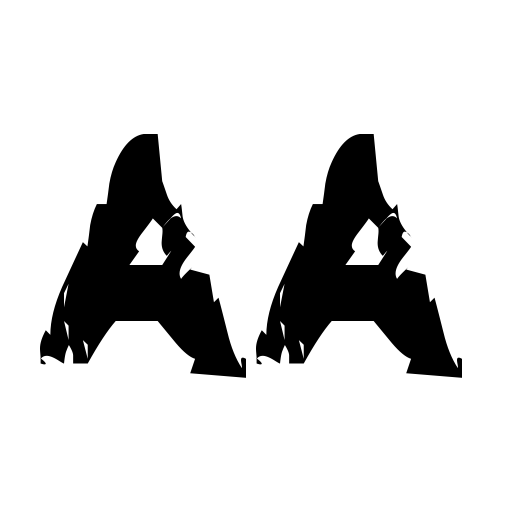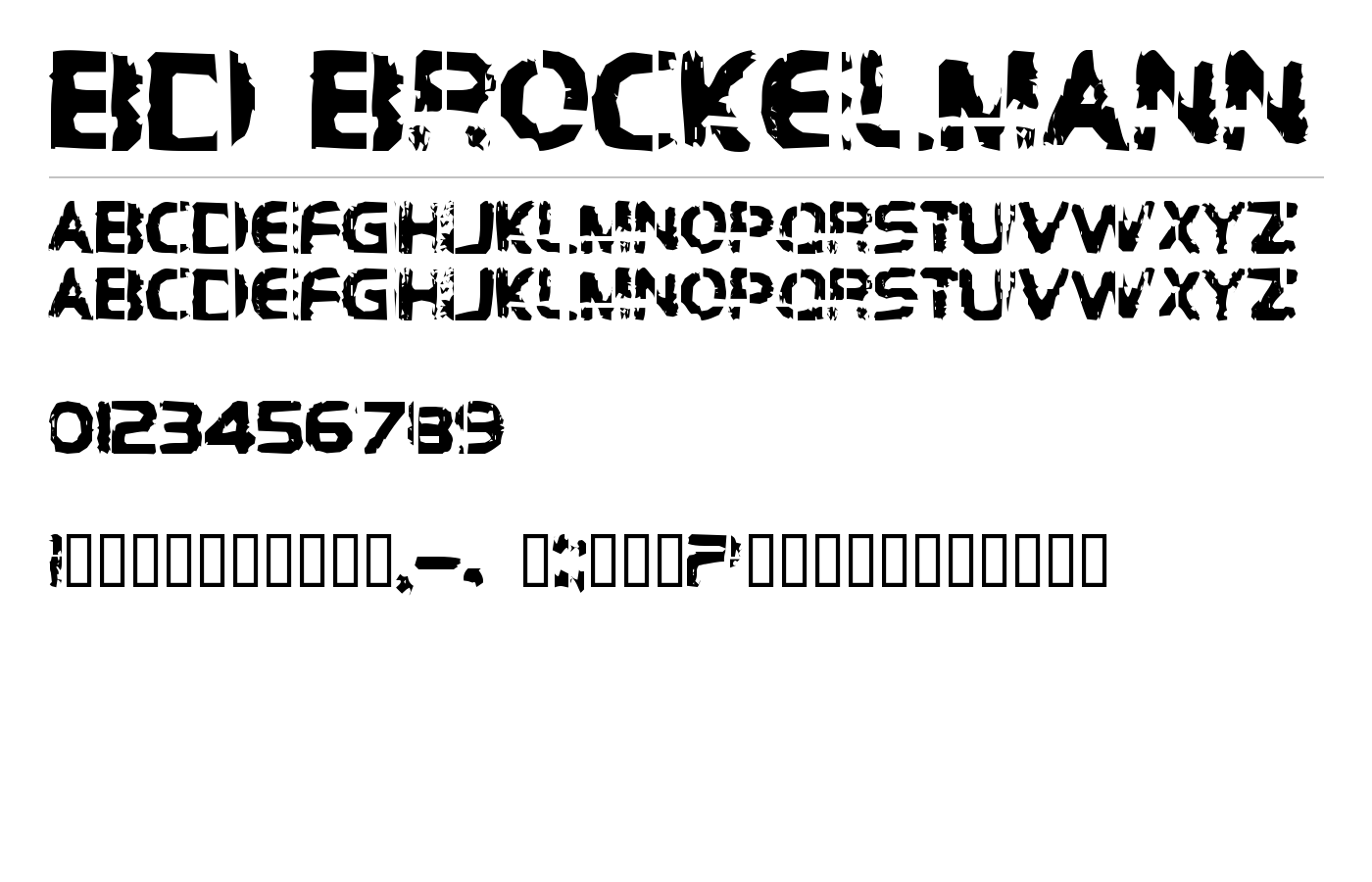
BD Brockelmann is a bold, distressed sans serif font characterized by its rough, weathered texture and strong, blocky letterforms. Its irregular edges and worn appearance create a gritty, urban feel, making it ideal for designs that need a rugged, vintage, or industrial vibe. This font works well in posters, logos, and headlines where a bold, impactful statement is desired.
BD Brockelmann Font
About BD Brockelmann Font